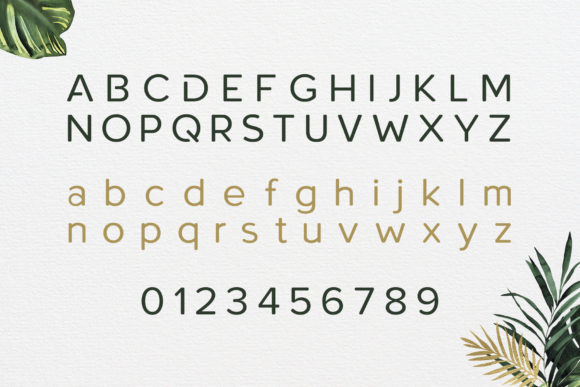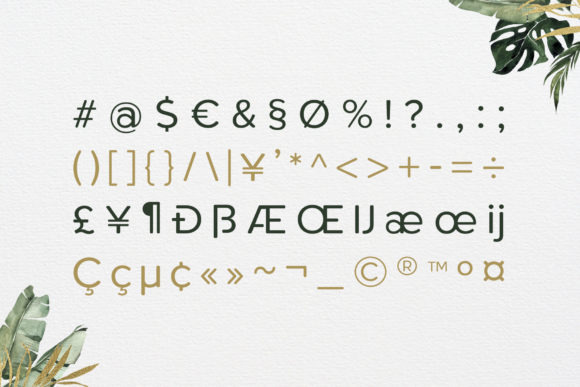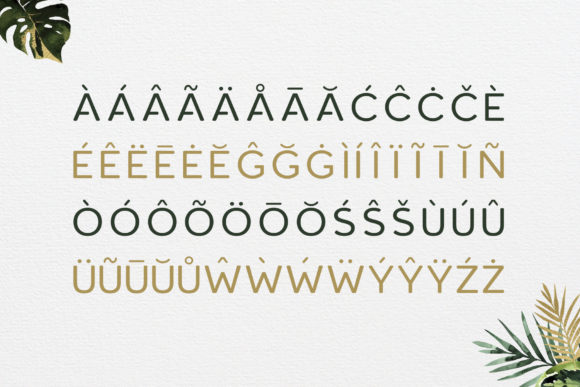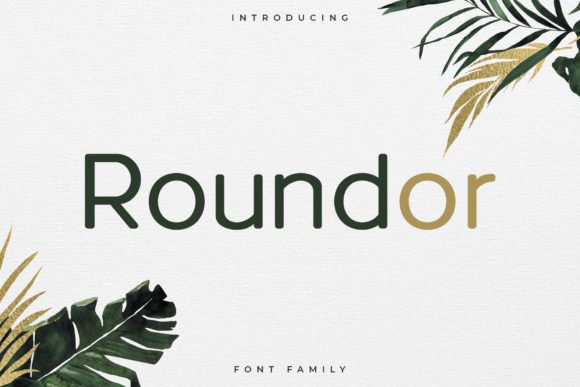
Introduction to Roundor Font
Roundor is a modern and casual sans serif font with an undeniably clean feel.
This font will look particularly adept when used in logos, branding, packaging design, and much more .
Roundor Font offers exceptional quality and versatility, making it a valuable addition to your design toolkit. Whether you’re creating for personal projects or commercial use, Roundor Font delivers professional results.